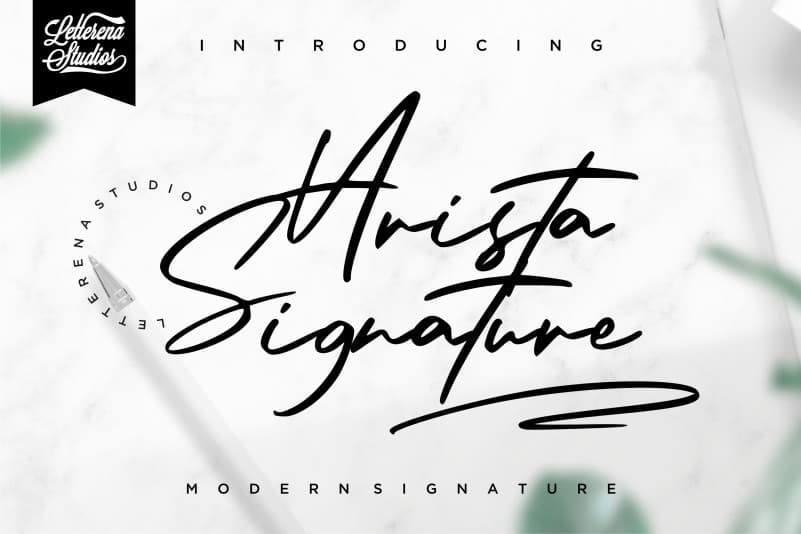
Arista Signature Font Free
Arista Signature – Modern Signature Font – Modern Signature Font, from Letterena, is a signature calligraphy font, suitable for any projects such as: logos, branding projects, homeware designs.
Product packaging, mugs, quotes, posters, shopping bags, t-shirts, book covers, name card, invitation cards, greeting cards, label, photography, watermark, special events, and all your other lovely projects that need a beautiful calligraphy taste.